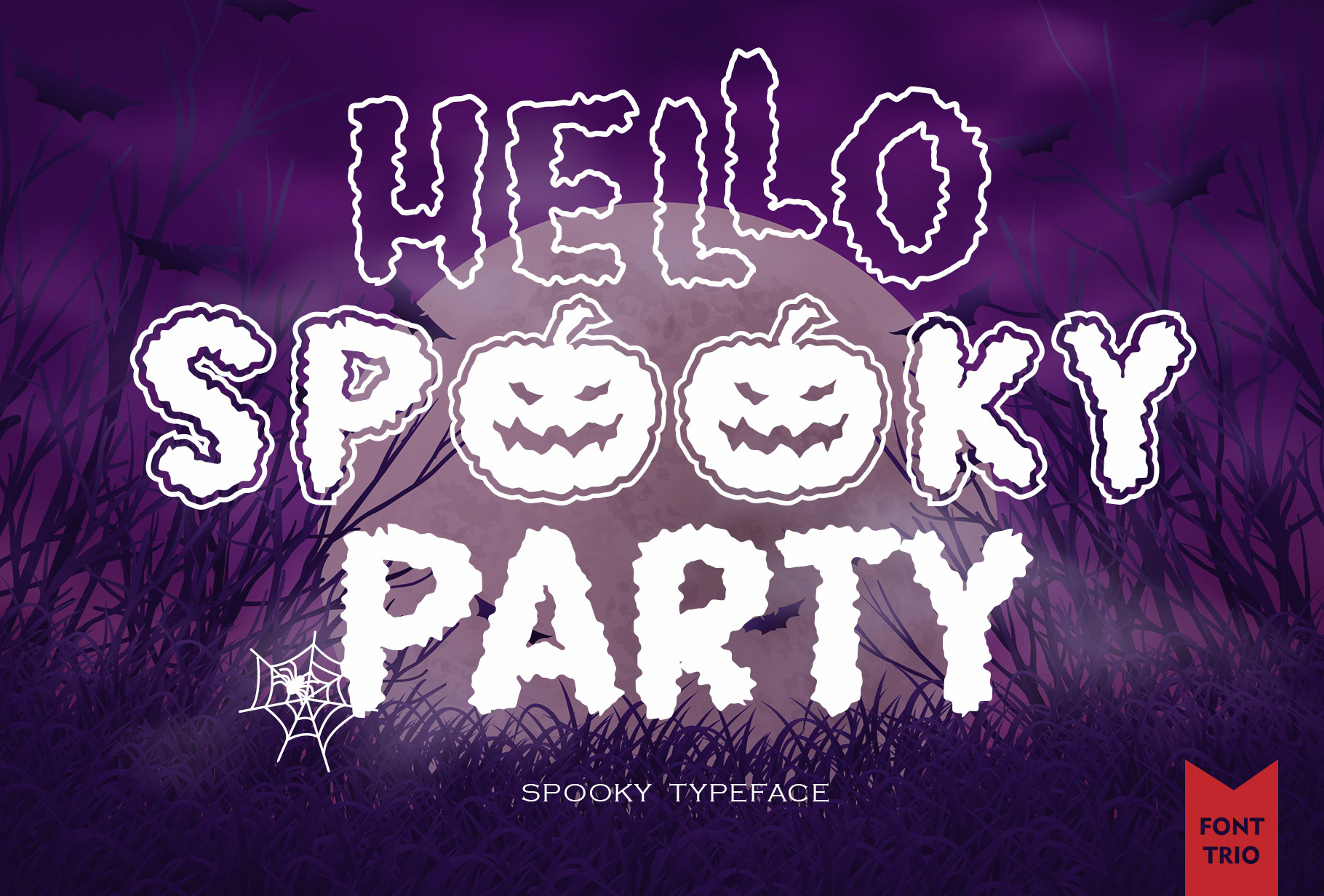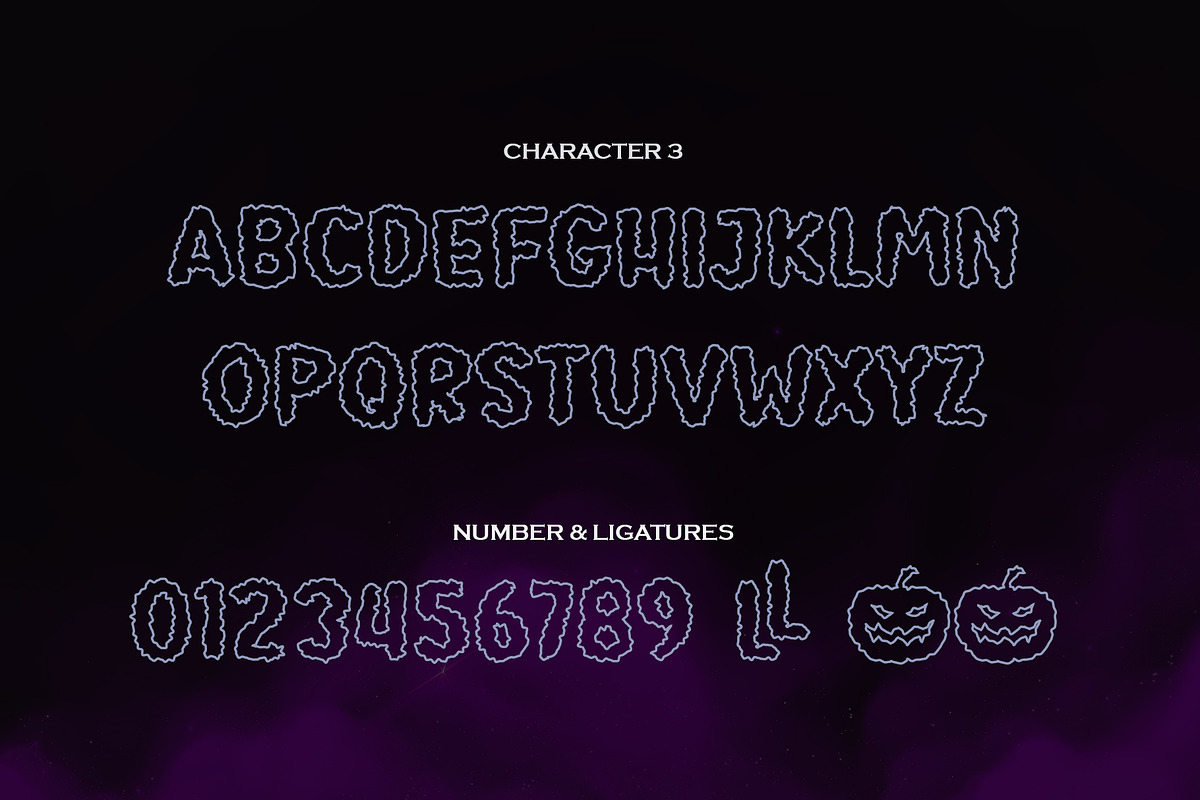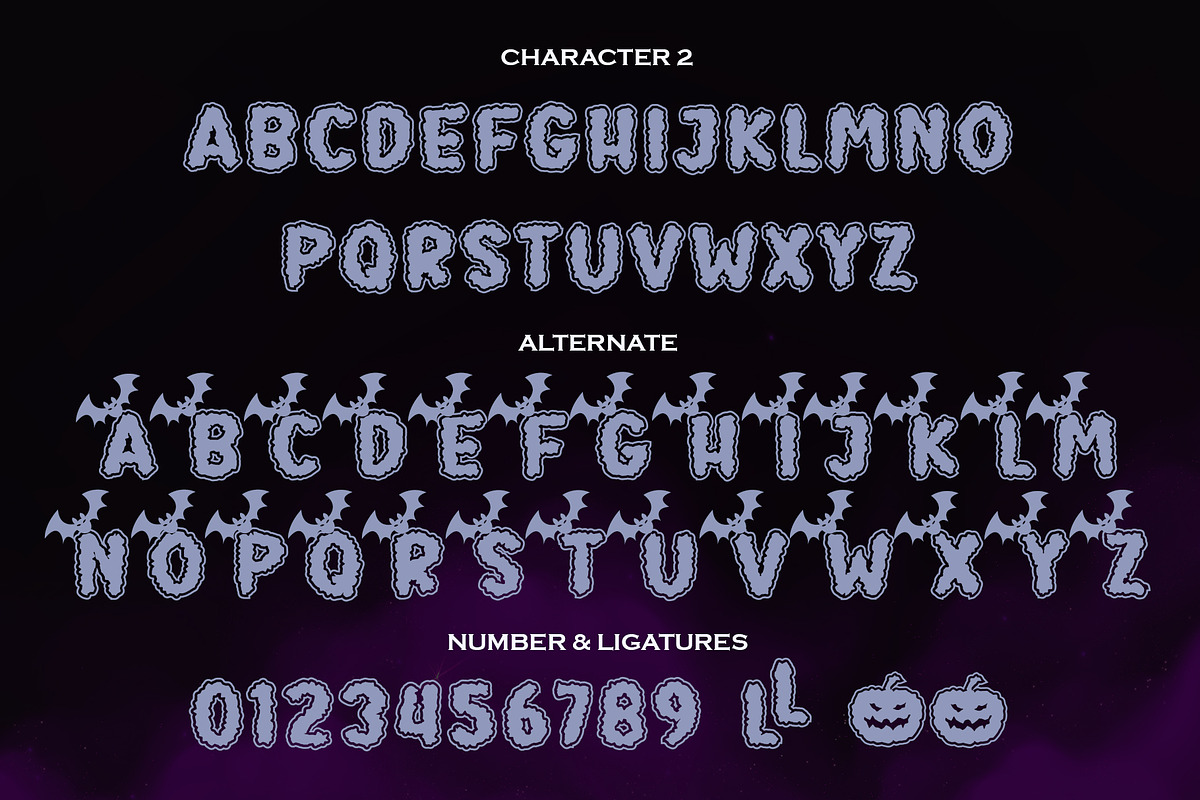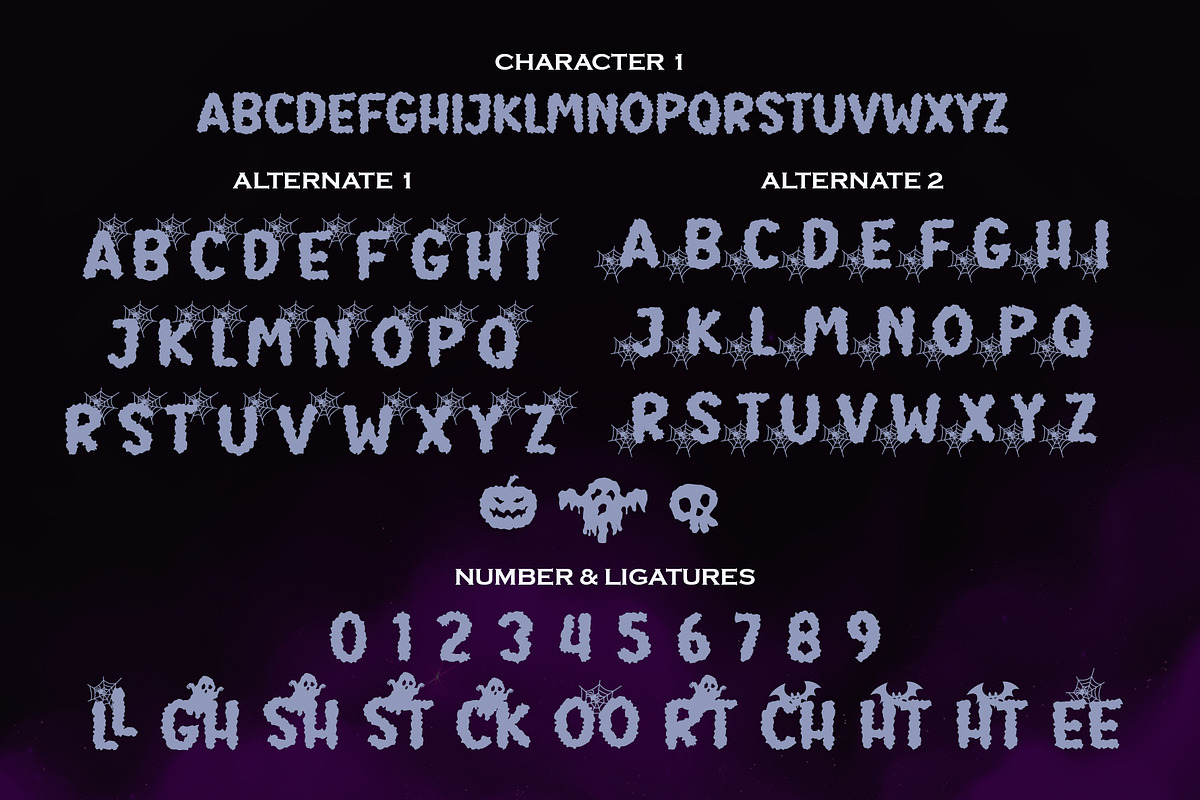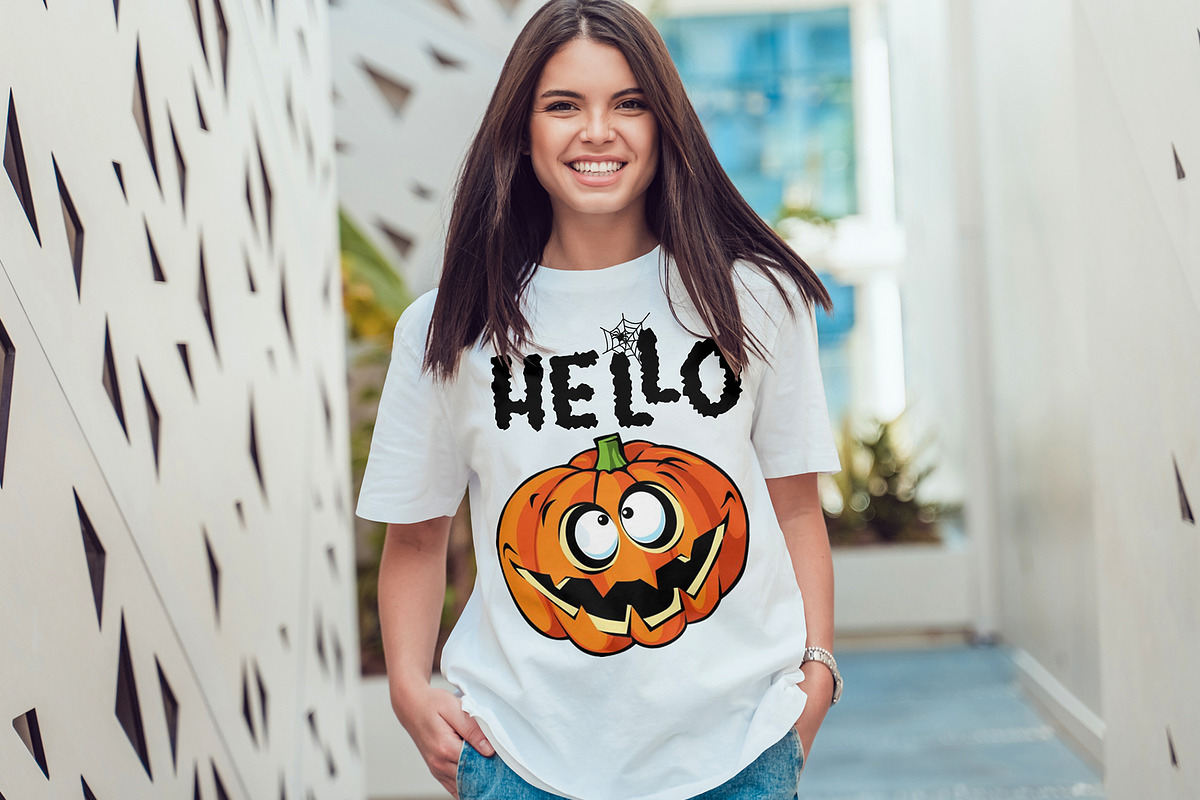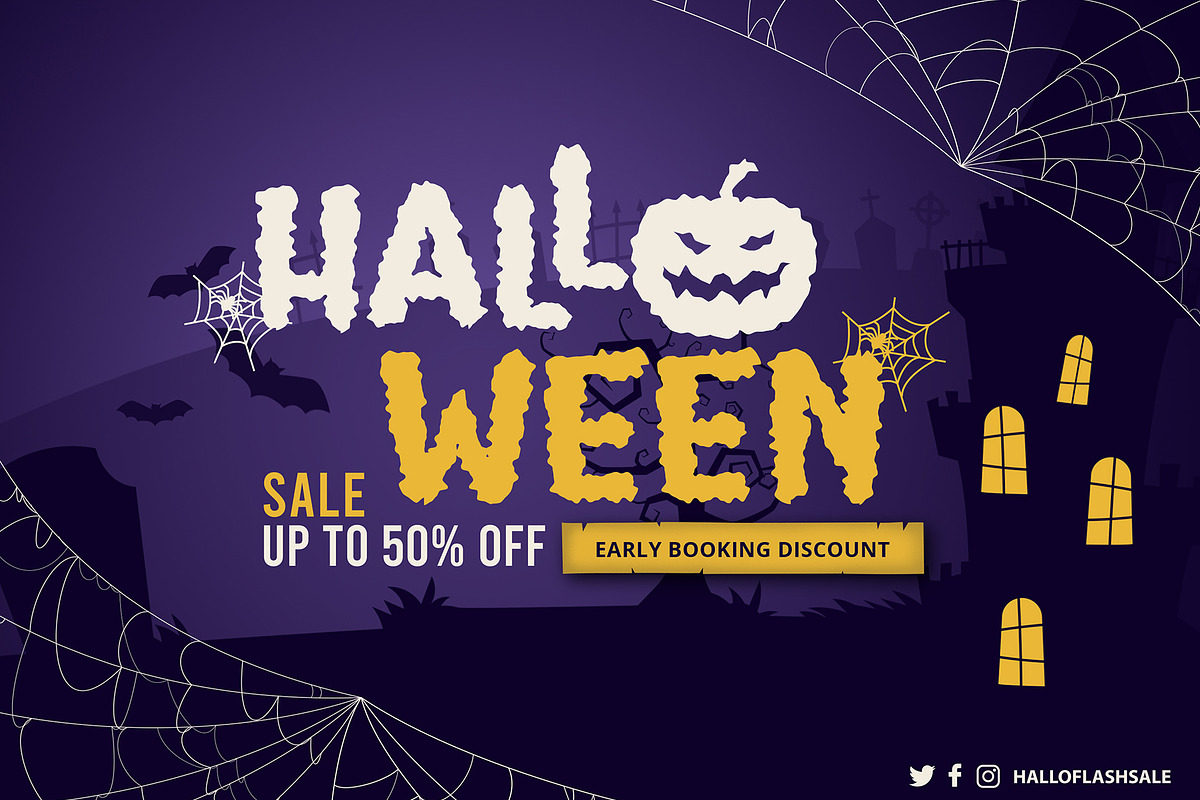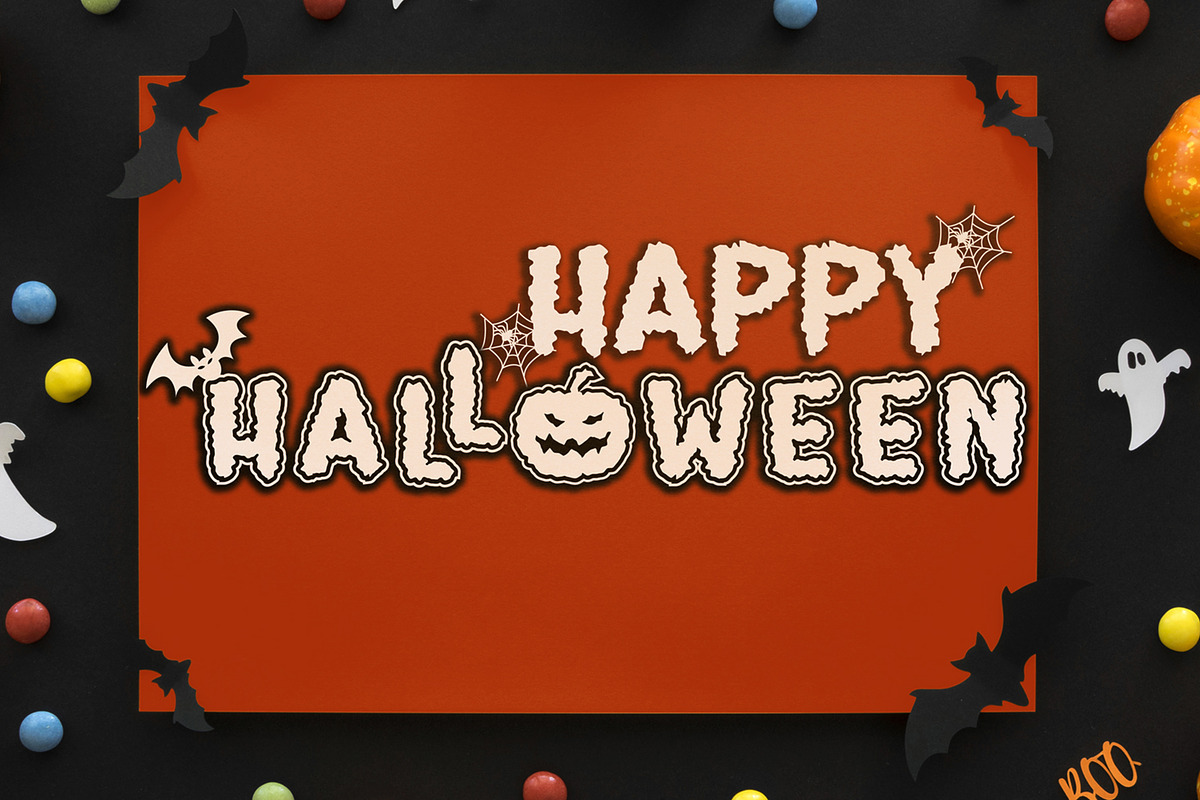
Spooky Party Font | Font Trio
Spooky Party is Font Trio bold and spooky display font. Expertly designed to make your creation look out of this world, this font has the potential to take your creative ideas far further. Perfectly fit for your halloween merchandise design and also unique alternative for display design.
- Font Display A-Z.
- Numbers.
- Stylistic Alternates and Ligatures.